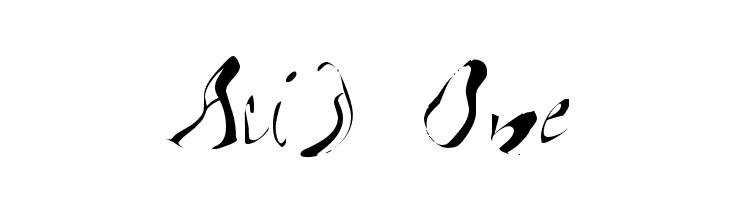
A modern, tall, and narrow sans-serif font with clean lines and balanced spacing.
A sketch-like, hand-drawn font with irregular lines and dynamic strokes.
A playful, bold font with rounded, bubble-like characters perfect for creative designs.
A bold, high-contrast font with a dramatic and impactful style.
A bold, 3D italic font with smooth, flowing strokes and a modern, dynamic style.
A bold, italic, futuristic font with angular, geometric characters.